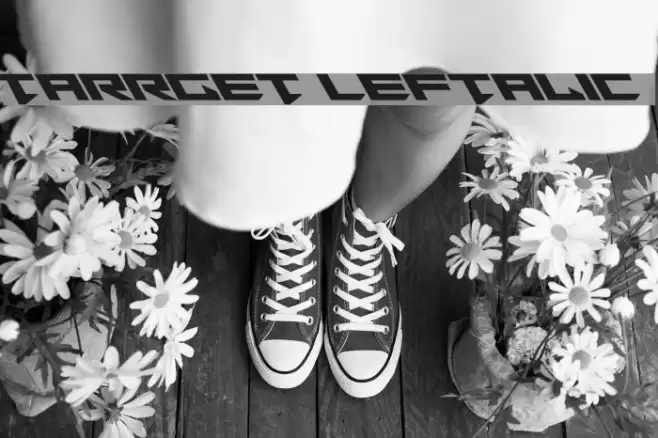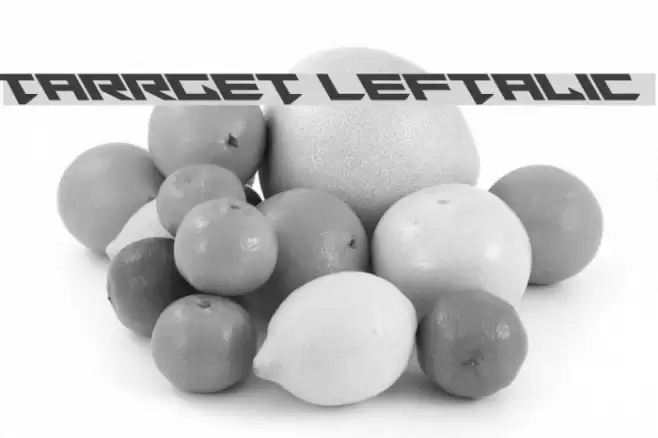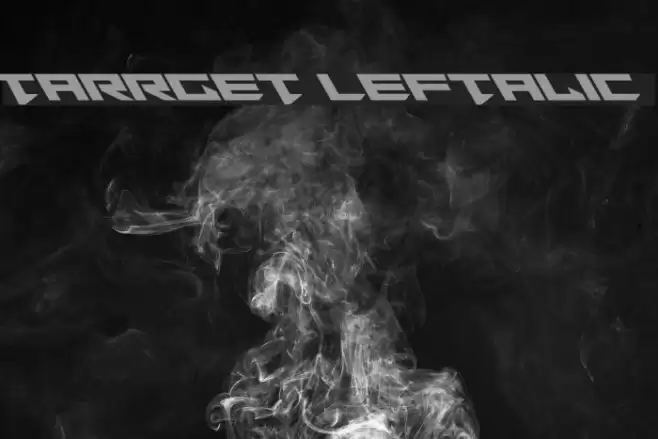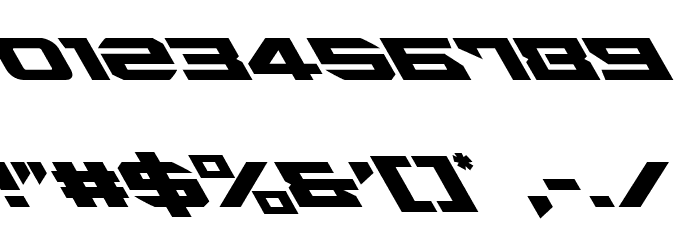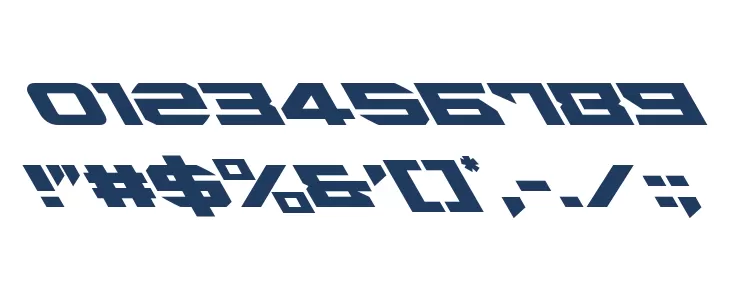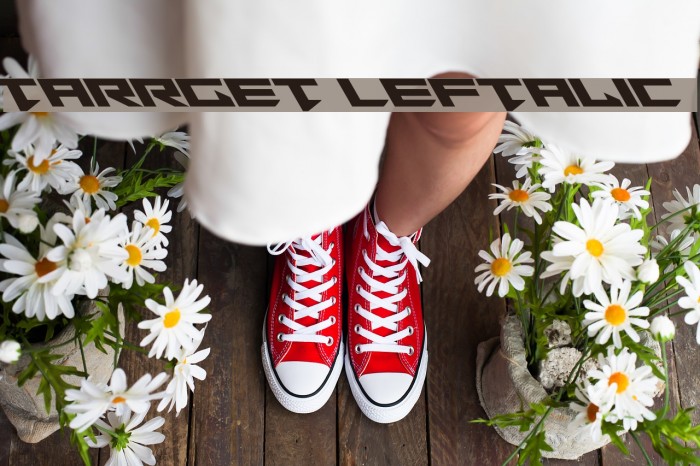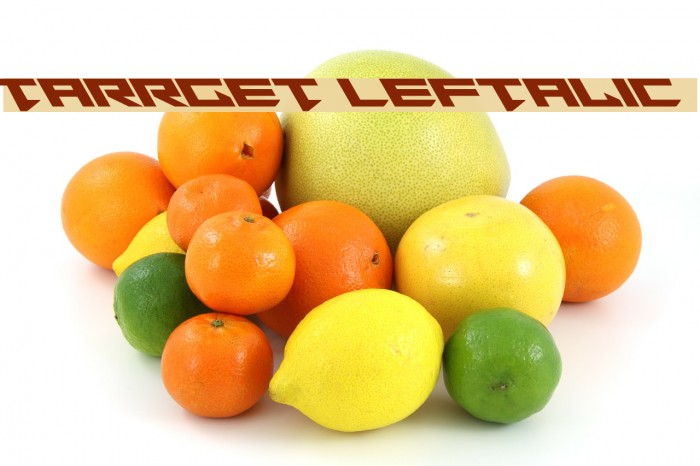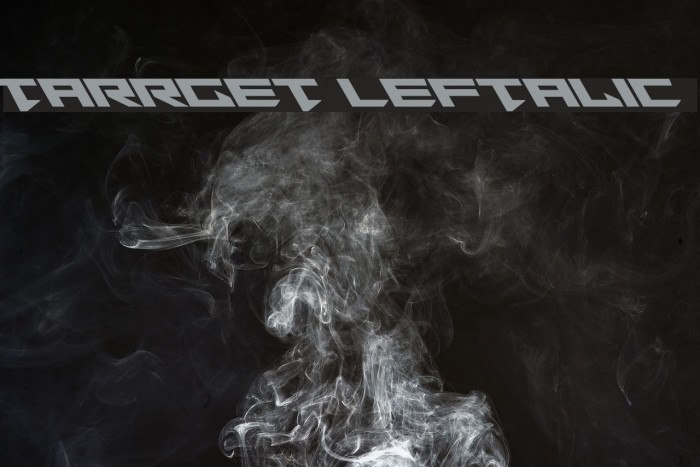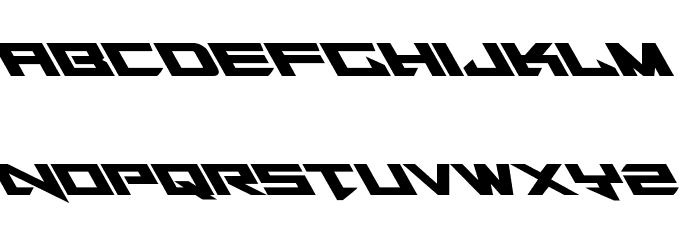
Tarrget Leftalic Font
Tarrget Leftalic Description
This font features a bold, futuristic design with sharp angles and a distinct slant to the left, giving it a dynamic and forward-moving appearance. The characters are wide and blocky, with a strong emphasis on geometric shapes. The uppercase and lowercase letters maintain a consistent style, while the numbers and special characters seamlessly integrate into the overall design. The font's aggressive and modern look makes it ideal for projects that require a bold statement.
A bold, futuristic font with sharp angles and a leftward slant from Uncategorized fonts.
- Proposed Projects: Ideal for sci-fi themed projects, video game titles, tech branding, and dynamic posters.
- Width: Expanded
- Overall Style: Futuristic